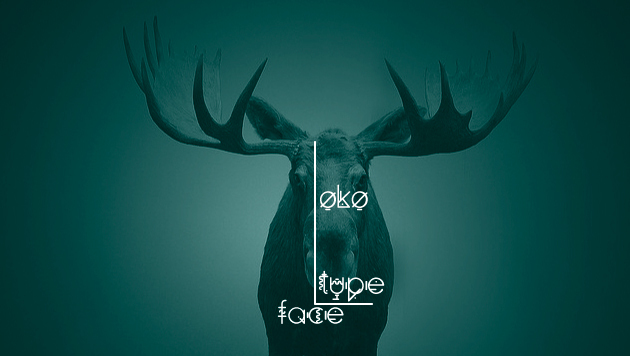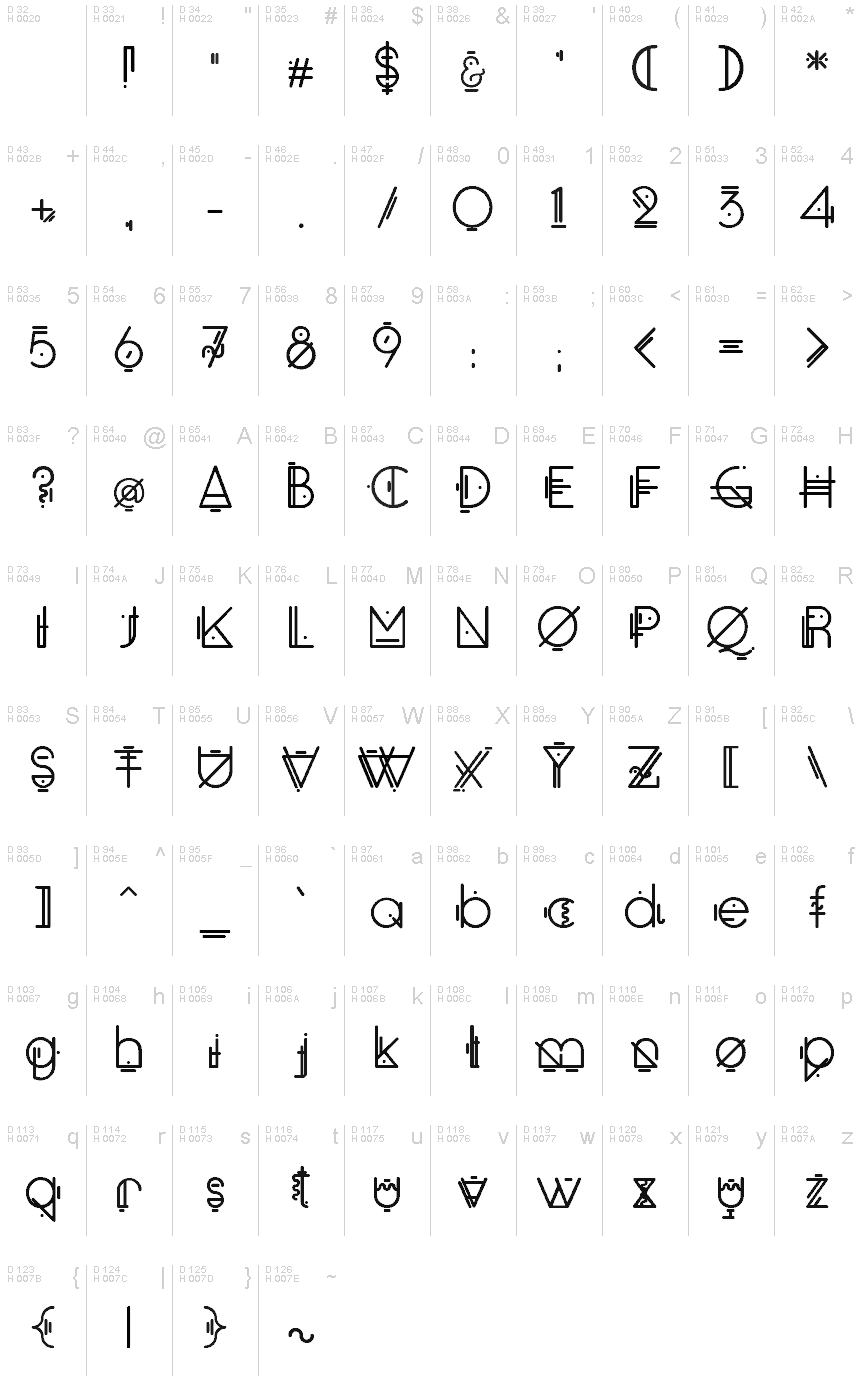
Oko
Oko is an alternative, decorative display font that immediately captivates with its bold, geometric silhouette. Devoid of serifs and boasting a striking contrast, each letter in this family exhibits a unique, visual richness that elevates its aesthetic appeal. Preferably suited for posters and branding projects, Oko's distinctive forms and distinctive promenor lend themselves to impactful, eye-catching typographic treatments.
This font's versatility and distinctive visual identity make it a compelling choice for designers seeking to craft memorable, visually striking designs.